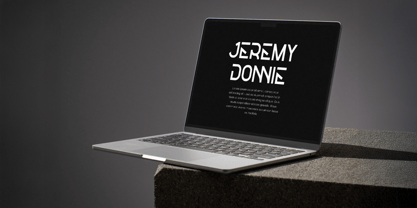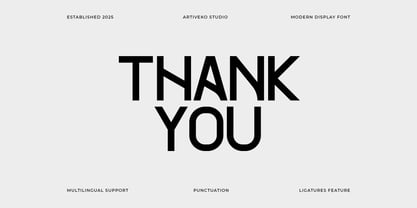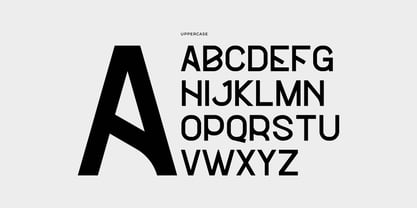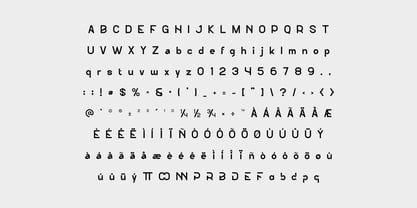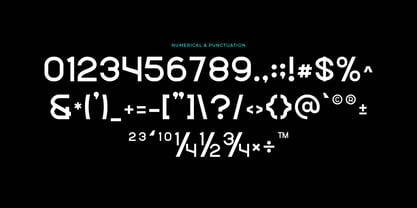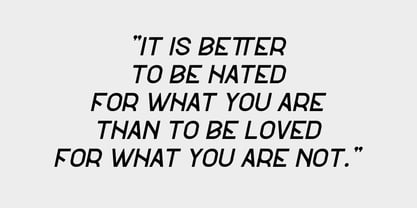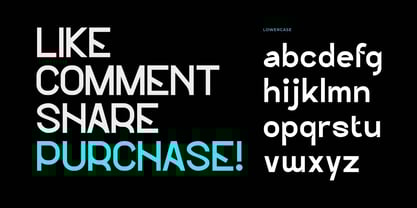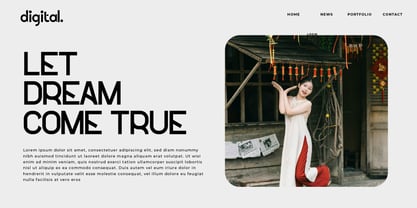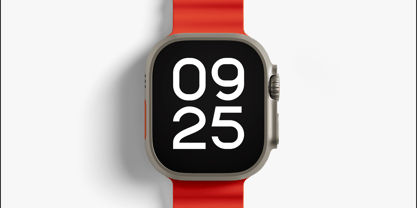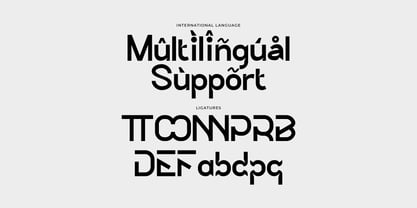
Northe
by Artiveko
The Northe Font Family was designed by Iwan Alwan and published by Artiveko. Northe contains 2 styles and family package options.
Northe is a modern, creative, and clean sans serif typeface crafted for brands that value clarity with a touch of sophistication. Designed with balanced proportions, sleek lines, and soft curves, Northe brings a fresh and contemporary feel to any project—whether it's a minimalist logo, a bold headline, or a stylish packaging design.
Thanks to its clean design and versatile structure, Northe works beautifully across digital and print platforms. The letterforms are carefully spaced for high legibility while still maintaining a distinctive character. It blends geometric precision with creative flair, making it ideal for designers looking to elevate their work with a unique yet accessible font.